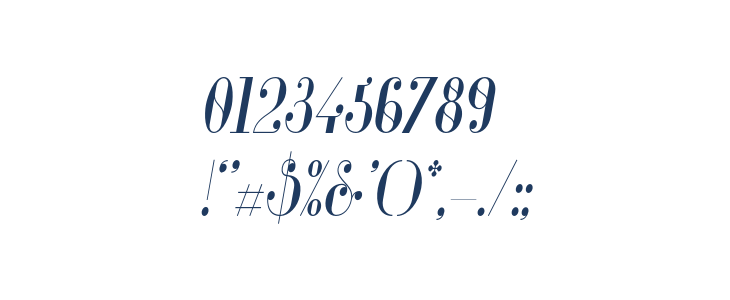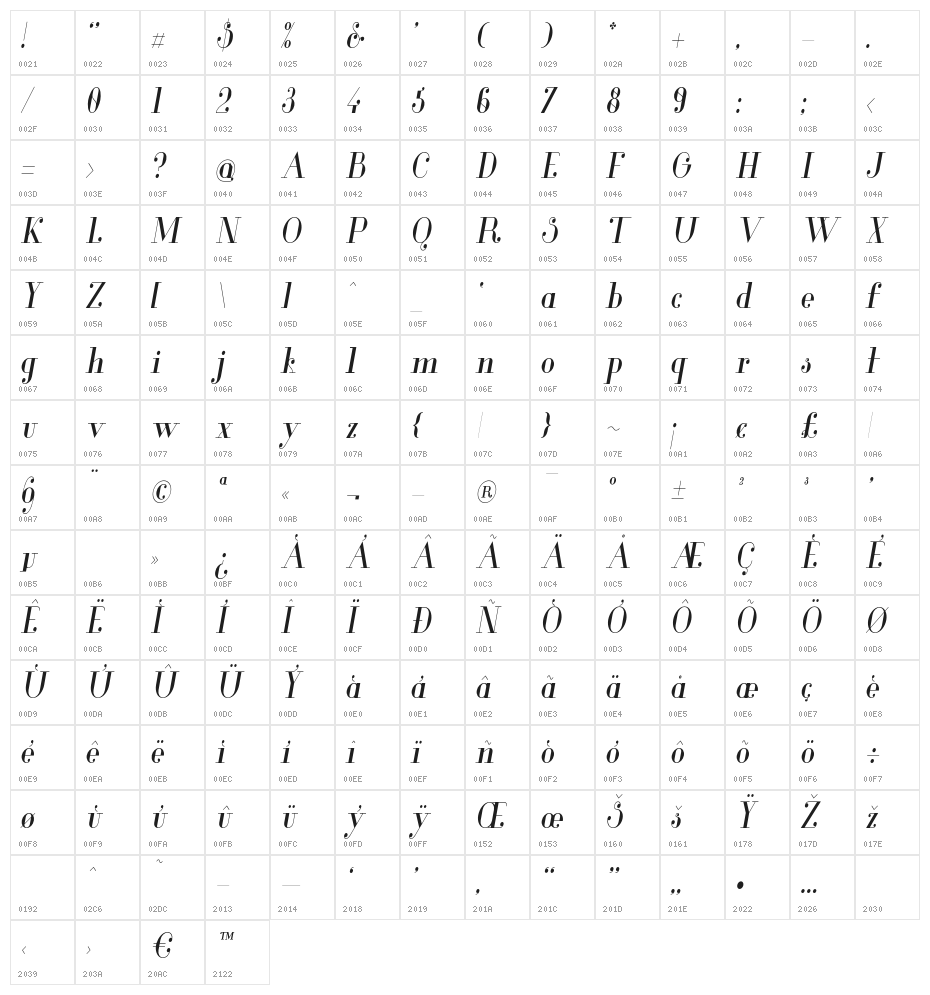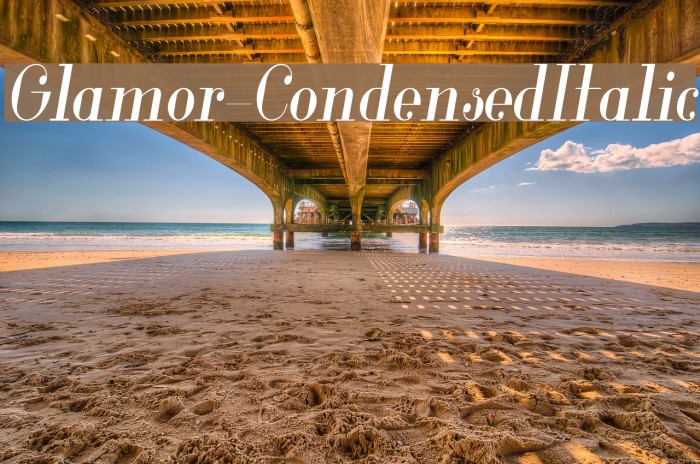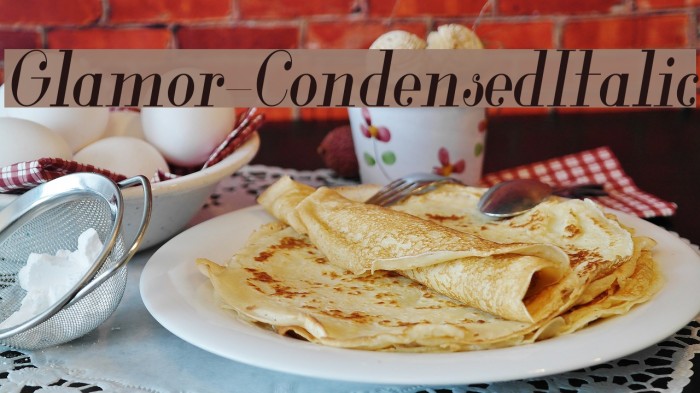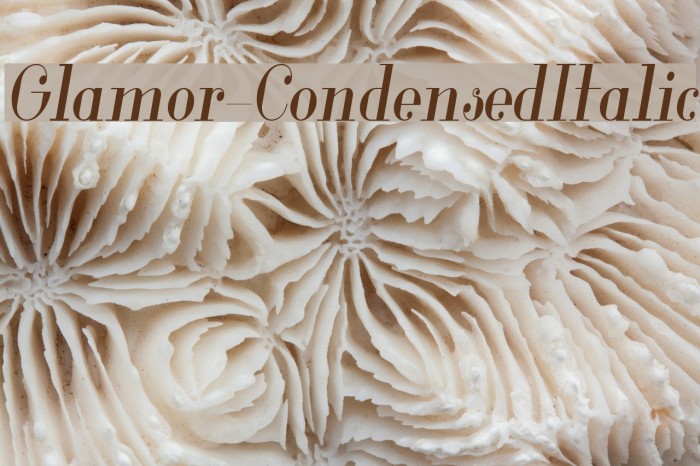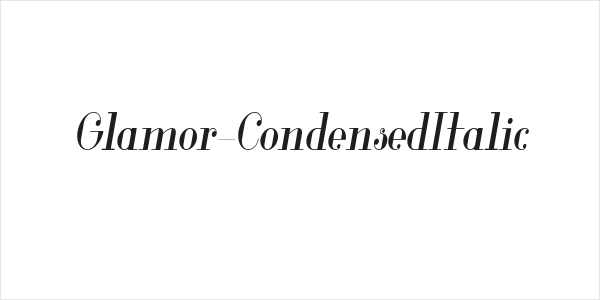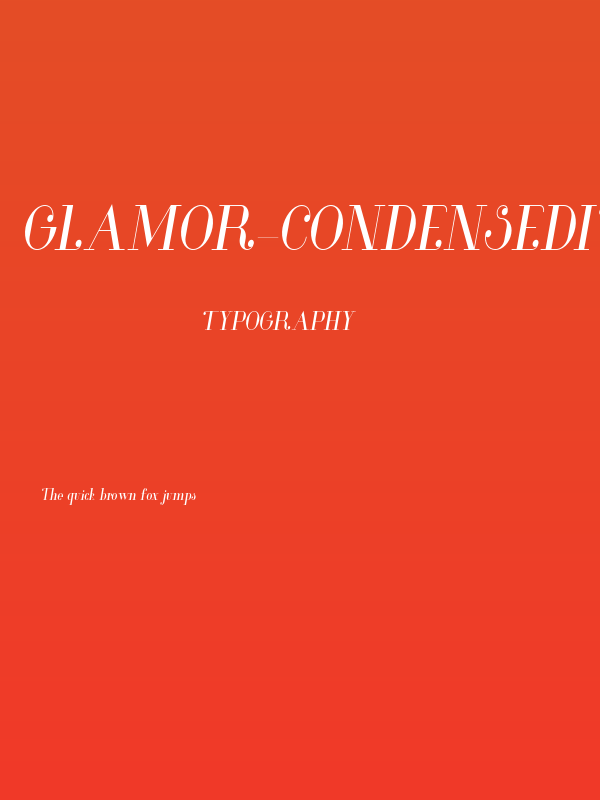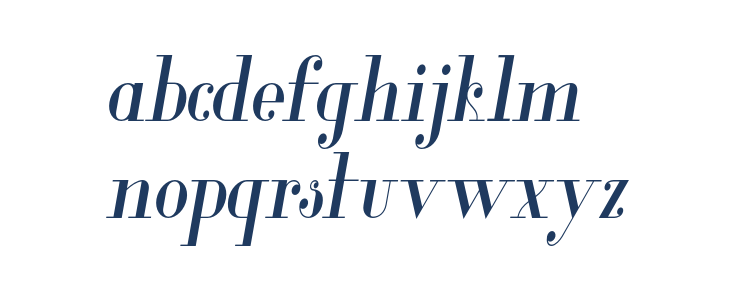
Glamor-CondensedItalic Font
Glamor-CondensedItalic Description
This elegant typeface features a sophisticated and stylish design with a condensed and italicized form. The characters are tall and slender, with a high contrast between thick and thin strokes, giving it a refined and graceful appearance. The serifs are sharp and pronounced, adding a touch of classic elegance. The overall look is both modern and timeless, making it suitable for a variety of high-end design projects. The spacing between characters is tight, enhancing the condensed nature of the font, while maintaining readability and visual appeal.